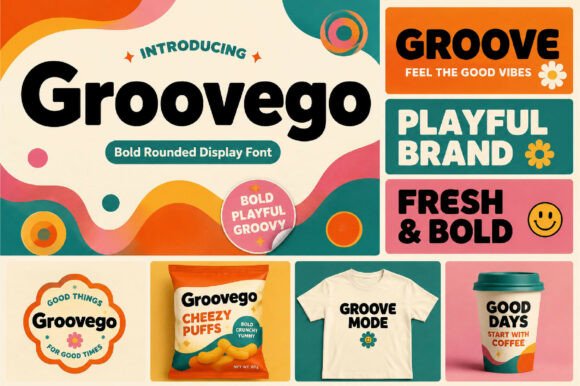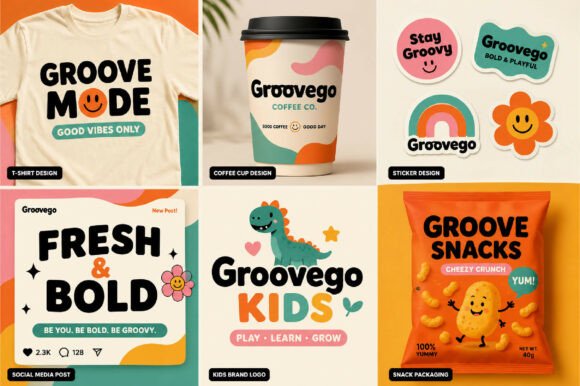
Introducing Groovego: The Bold Display Font with a Groovy Twist
Are you tired of using the same old fonts in your creative projects? Look no further than Groovego, the bold display font that’s about to take your designs to the next level. With its unique blend of retro vibes and animated essence, Groovego is the perfect choice for setting a dynamic, fun-filled tone in a wide array of creative ventures.
A Font that’s a Statement
Groovego is not just a font – it’s a statement. Its robust letterforms and seductive curves are inspired by the funky, carefree spirit of the 1970s. With its bold, eye-grabbing design, Groovego is sure to turn heads and spark conversations wherever it makes an appearance. Whether you’re designing a logo, creating social media graphics, or crafting event visuals, Groovego is the perfect choice for adding a touch of personality to your work.
Groovego is a versatile font that’s perfect for a wide range of creative projects. Here are just a few ideas to get you started:
- Eye-grabbing Headlines: Use Groovego to create bold, attention-grabbing headlines that draw readers in and make them want to learn more.
- Brand-defining Logos: Create a logo that truly reflects your brand’s personality with Groovego’s unique, groovy design.
- Product Packaging: Make your product stand out on store shelves with Groovego’s bold, colorful design.
- Wearable Art: Create custom apparel that truly reflects your personal style with Groovego’s fun, playful design.
- Social Media Graphics: Transform your social media graphics from bland to grand with Groovego’s bold, eye-grabbing design.
- Event Visuals: Create event visuals that are truly unforgettable with Groovego’s dynamic, animated essence.
A Font that’s Readable and Unique
One of the standout features of Groovego is its hefty display structure, which ensures readability even at larger font sizes. But what really sets Groovego apart is its unique blend of round, groovy shapes that infuse warmth and character into every letter. Whether you’re using Groovego for print or digital projects, it’s sure to leave a lasting impression on your audience.
Transforming Humdrum Designs into Conversation Starters
We’ve all been there – stuck with a design that’s just not quite working. But with Groovego, those humdrum designs are a thing of the past. This bold, playful font has the power to transform even the most mundane designs into conversation starters. Imagine being able to create social media graphics that spark conversations, event visuals that are truly unforgettable, and product packaging that pops off the shelf. With Groovego, it’s all possible.
A Charming Intersection of Style and Function
Groovego is more than just a font – it’s a way to add a touch of personality to your designs. Its unique blend of retro vibes and animated essence creates a charming intersection of style and function that’s sure to delight designers and audiences alike. Whether you’re a seasoned pro or just starting out, Groovego is the perfect choice for anyone looking to add a little extra flair to their designs.
Get Ready to Groove with Groovego
So why settle for boring, bland fonts when you can add a little extra excitement to your designs with Groovego? With its bold, eye-grabbing design and endless creative possibilities, Groovego is the perfect choice for designers and crafters who want to take their work to the next level. So go ahead, get ready to groove with Groovego, and see the difference that this amazing font can make in your designs.